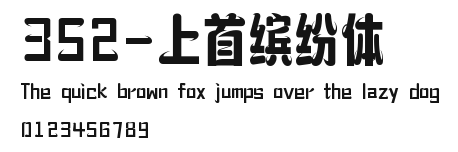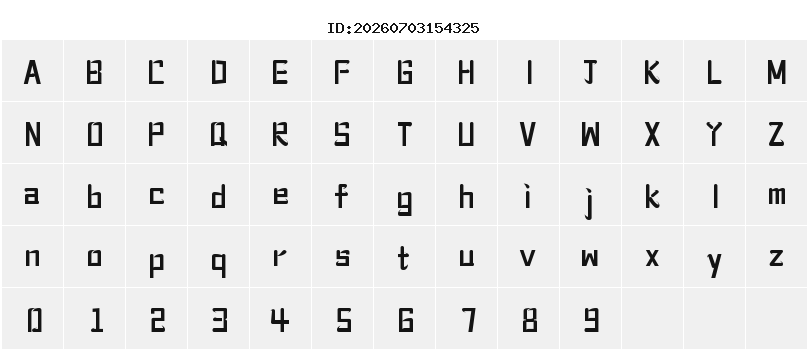
352-上首缤纷体 Preview
• Font Name: 352-上首缤纷体
• Full Font Name: 352-上首缤纷体
About 352-上首缤纷体.ttf
352-上首缤纷体.ttf is a modern, elegant sans-serif font designed for ultimate readability and visual harmony. Perfect for branding, headlines, web design, and print materials.